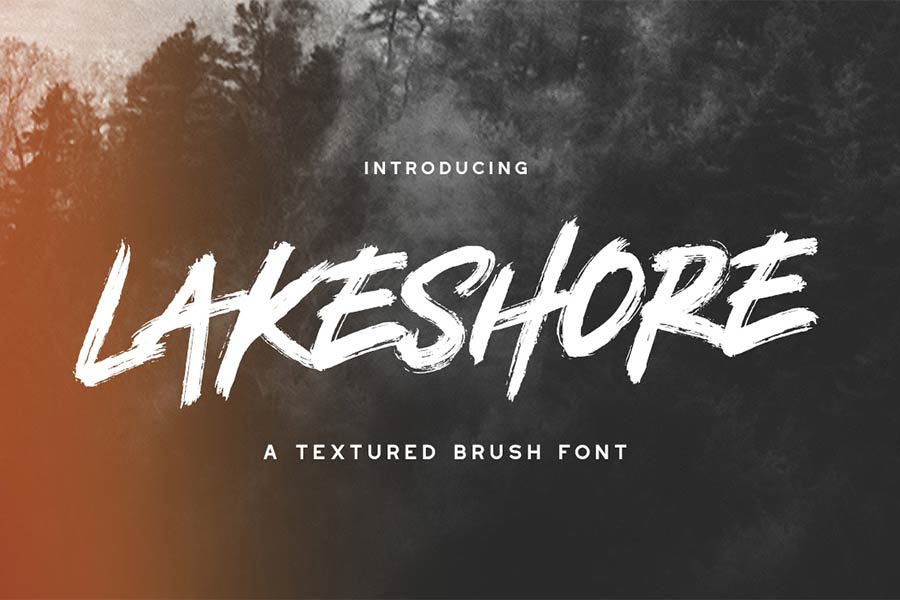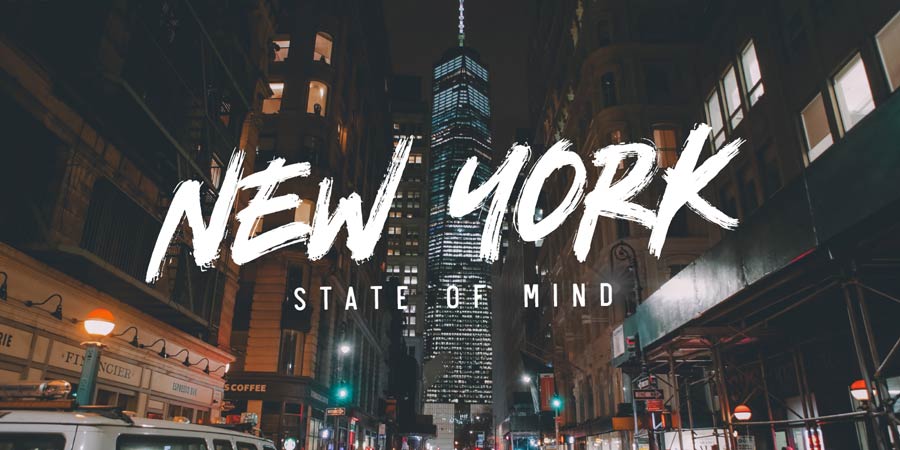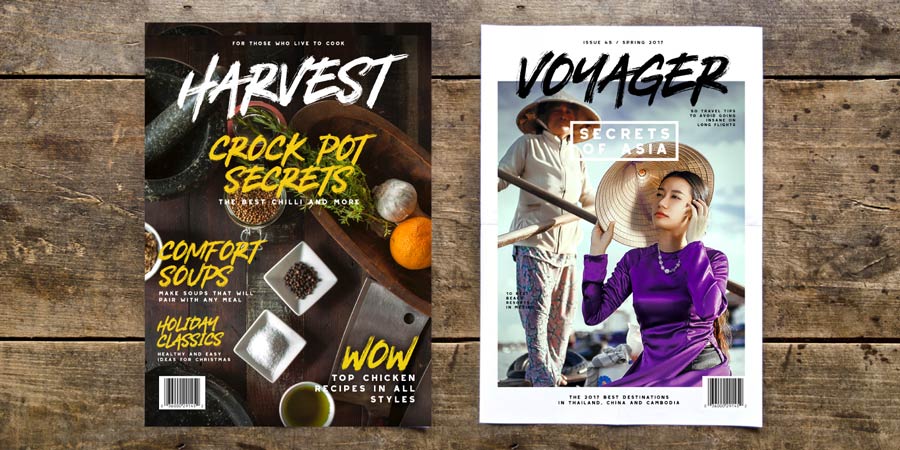
Lakeshore is a modern, good looking hand painted font that you’ve been looking for. According to the designer, each character was carefully painted and constructed, and some took him more than a staggering 50 tries. Crazy amount of details of the font was preserved during the digitisation process, it will look fantastic up close even on large sizes.
This font is great for many occasions, including poster designs, headlines and more. The free version is available for personal use only, and commercial license is available for purchase too.